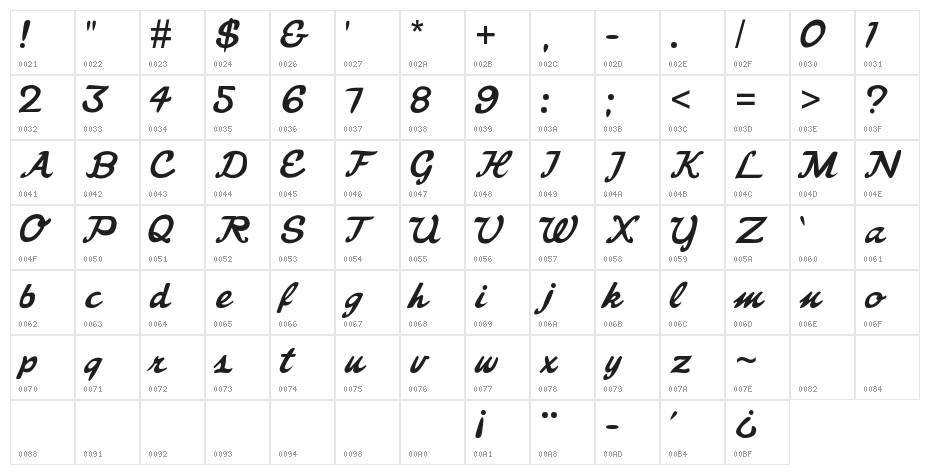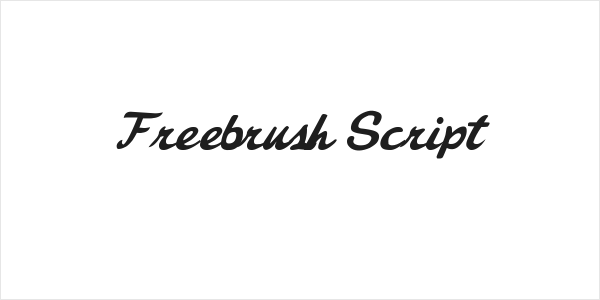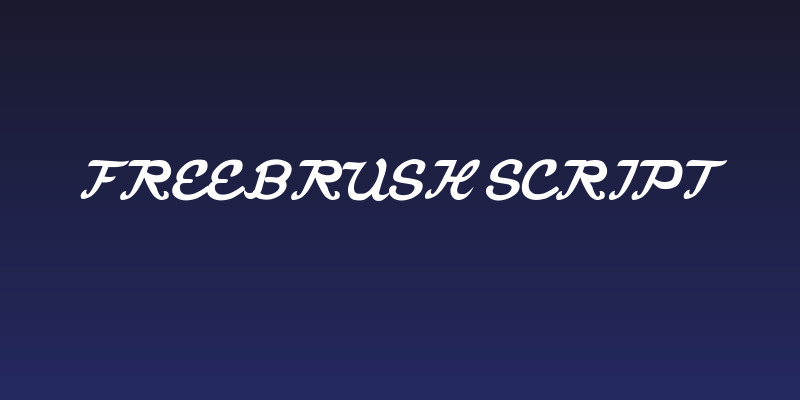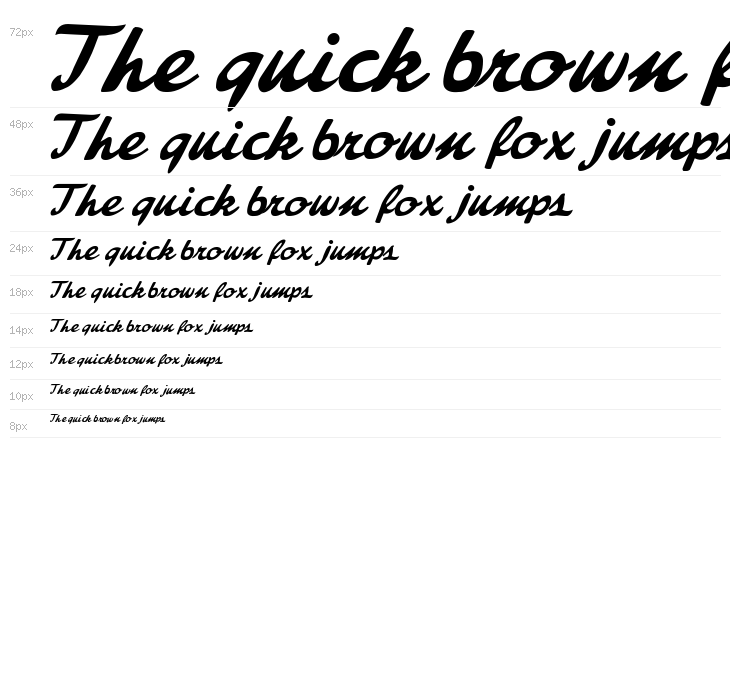
Freebrush Script Font
Freebrush Script Description
This font features a dynamic and fluid script style, characterized by its elegant, flowing strokes that mimic the natural motion of handwriting. The uppercase letters are bold and slightly slanted, giving a sense of movement and energy. The lowercase letters maintain a consistent flow, with smooth connections between characters, enhancing readability while preserving an artistic flair. The numerals are distinct and bold, matching the overall style of the alphabet. Special characters are creatively designed, maintaining the script's cohesive look. This font exudes a sense of creativity and personal touch, making it ideal for projects that require a handwritten or artistic appearance.
| Use Case | Logos, Headlines, Invitations |
| Proposed Projects | Ideal for wedding invitations, greeting cards, logos, branding, and social media graphics. |